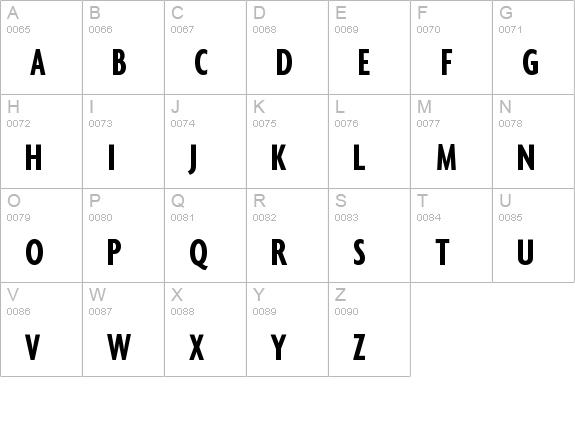
Agenda-BoldExtraCondensed Font Details
Agenda-BoldExtraCondensed is a striking and versatile font that exudes confidence and strength. Its bold and condensed design makes it perfect for creating impactful headlines, titles, and branding materials. The clean lines and modern aesthetic of this font make it a popular choice for designers looking to make a bold statement. What's even better is that Agenda-BoldExtraCondensed is available for free download at FontsMarket.com. This means you can easily access this powerful font to elevate your projects without breaking the bank. Whether you're working on a professional presentation, a sleek logo design, or a stylish poster, Agenda-BoldExtraCondensed is sure to make a lasting impression. Download it today and take your designs to the next level!